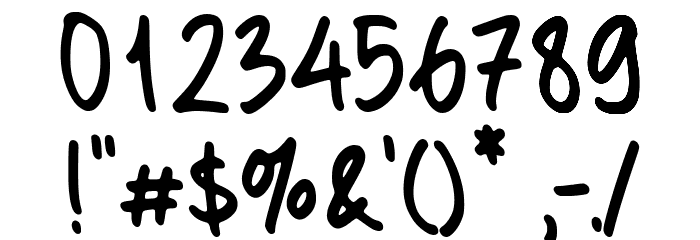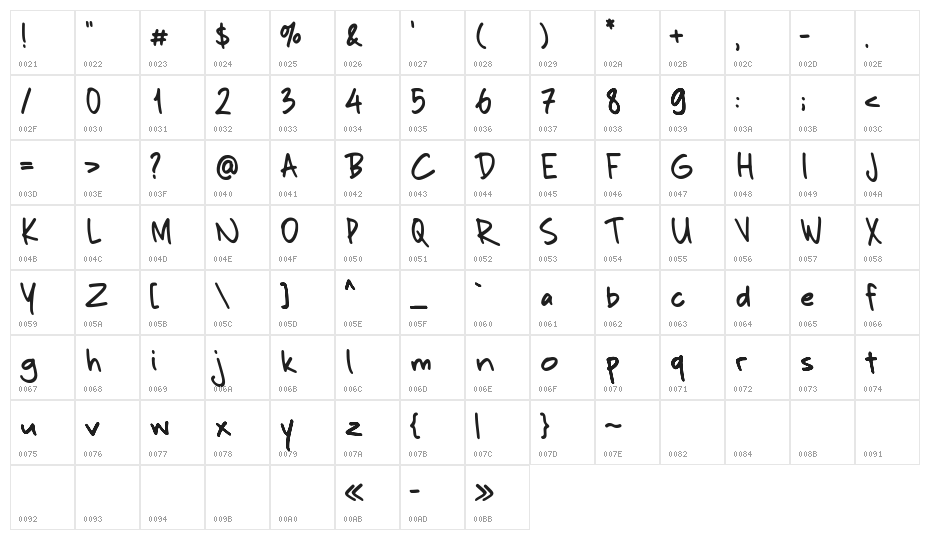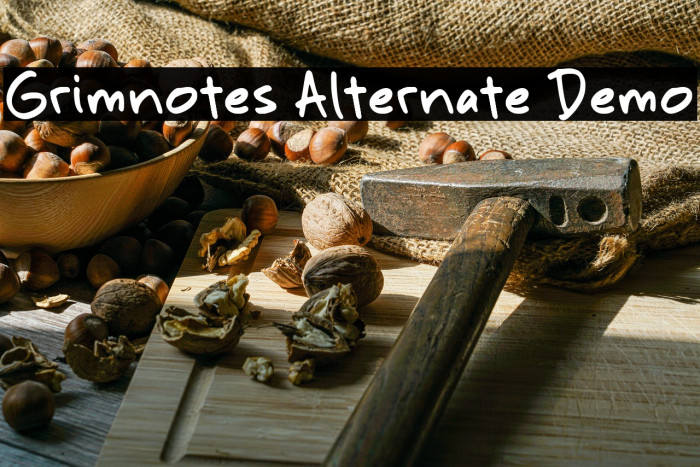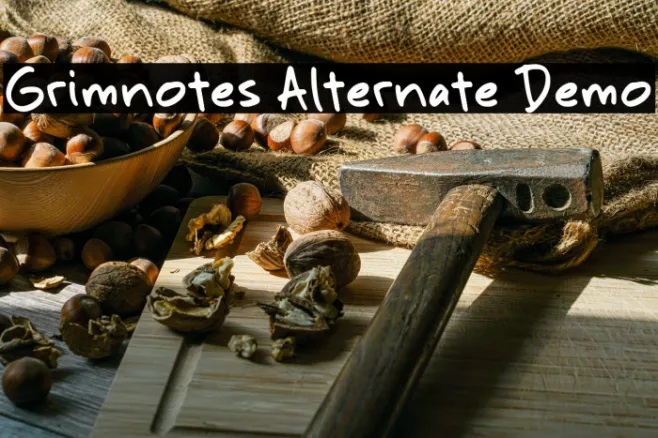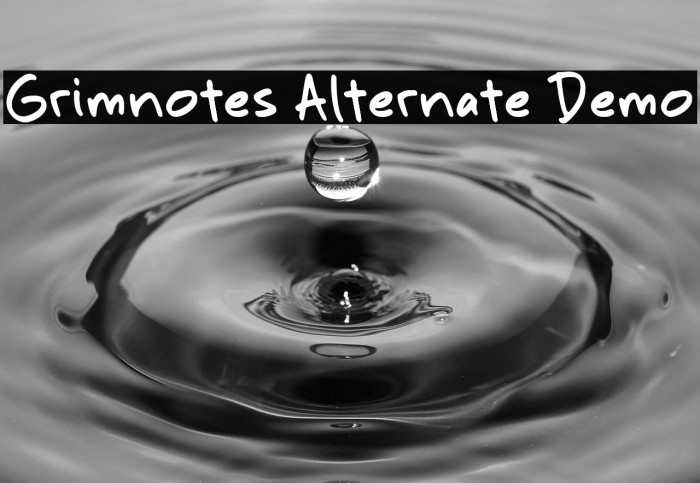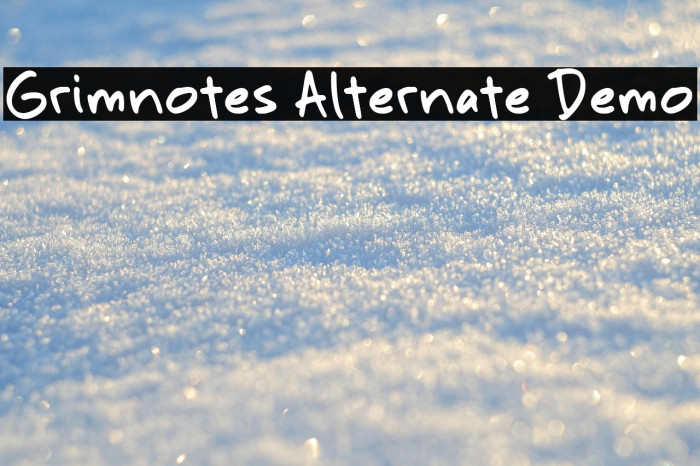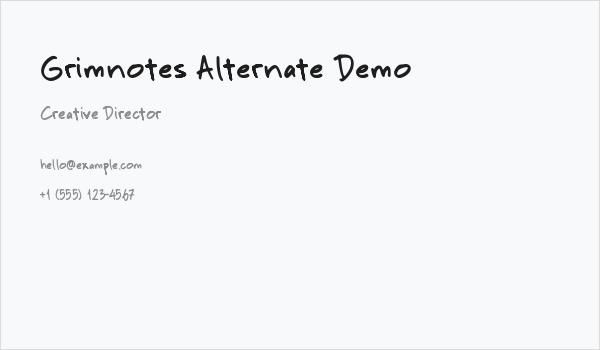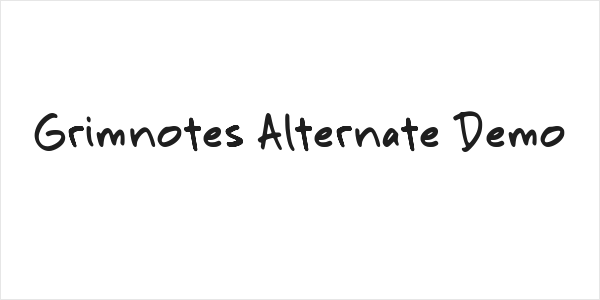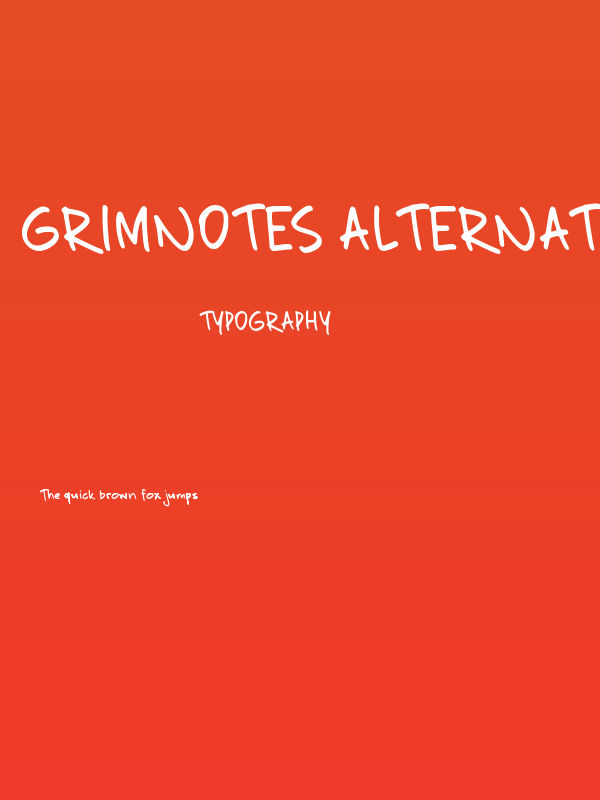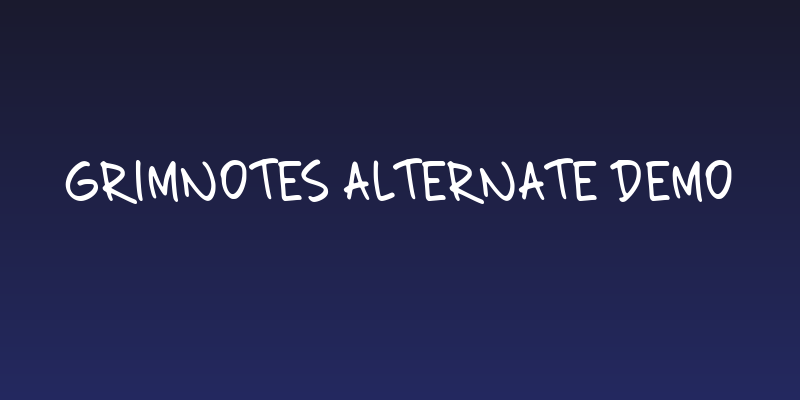
Grimnotes Alternate Demo Font
Grimnotes Alternate Demo Description
This font exudes a playful and casual handwritten style, characterized by its irregular and organic letterforms. The strokes are uneven, giving it a lively and dynamic appearance. Each character has a unique flair, with varying heights and angles, adding to its informal charm. The font maintains a consistent thickness throughout, which contributes to its readability despite the whimsical design. It captures the essence of personal handwriting, making it ideal for projects that require a touch of personality and warmth. The numerals and special characters are crafted with the same playful spirit, ensuring a cohesive look across all text elements.
| Proposed Projects | Ideal for greeting cards, children's books, personal blogs, and informal branding. |